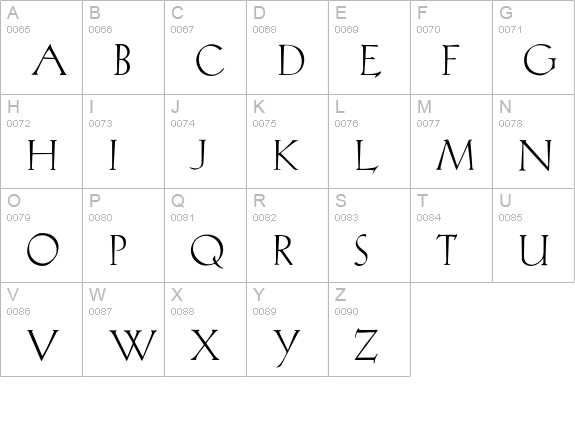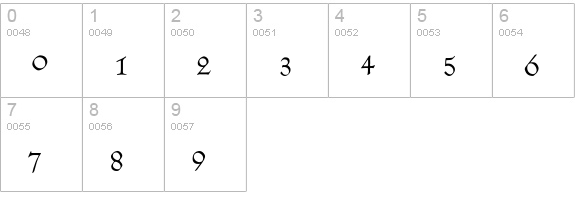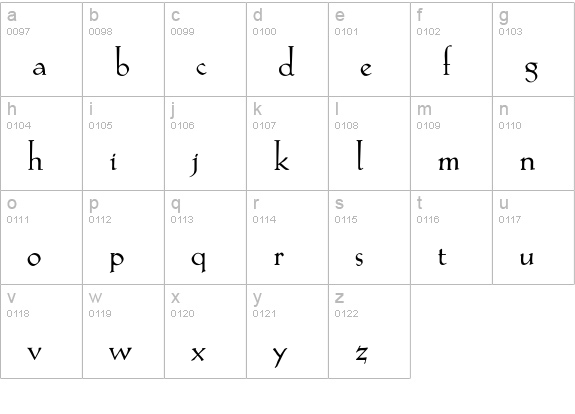
AliceLight font is a beautifully crafted typeface that exudes elegance and sophistication. With its delicate lines and graceful curves, this font is perfect for creating eye-catching designs that demand attention. Whether you're working on a project that requires a touch of finesse or simply want to add a touch of class to your designs, AliceLight font is the ideal choice. Best of all, AliceLight font is completely free to download at FontsMarket.com. That's right - you can access this stunning font at no cost, making it an affordable and accessible option for all your design needs. So why wait? Download AliceLight font today and take your projects to the next level with its timeless beauty and charm.